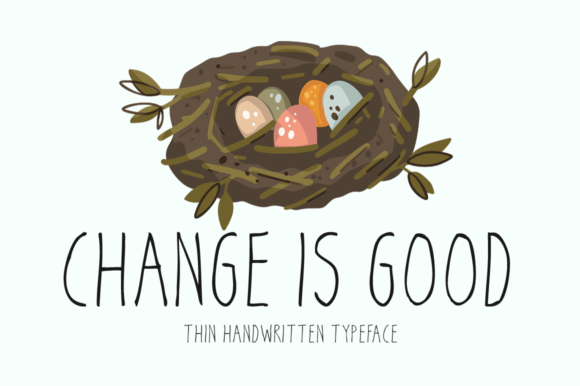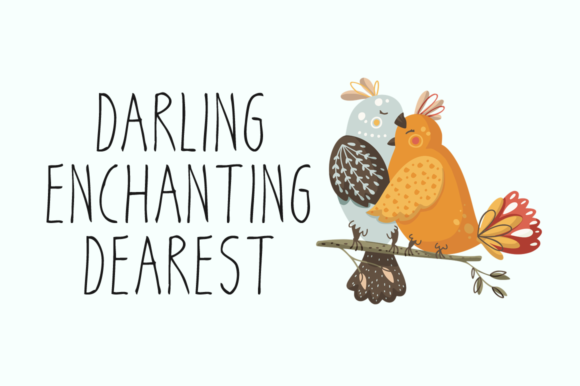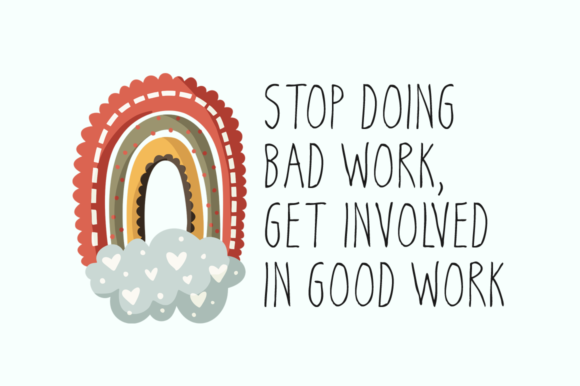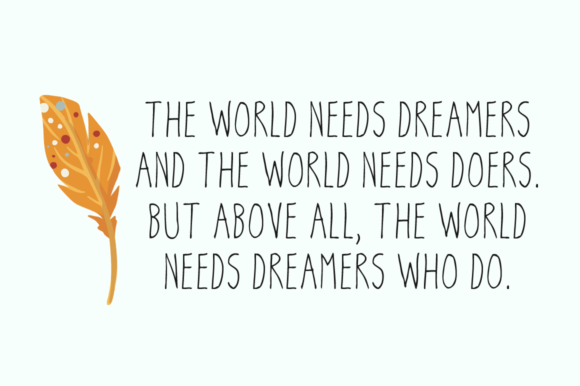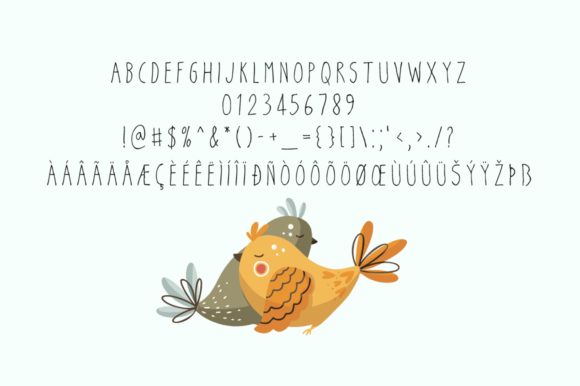
Change is Good Font
About Change is Good Font
Change Is Good is a lovely handwritten font that embodies authenticity and charm in every letter. It is perfectly suited for stationery, logos, t-shirt, paper, print design, website header, photo frame, flyer, music cover, poster, image slider, and much more.